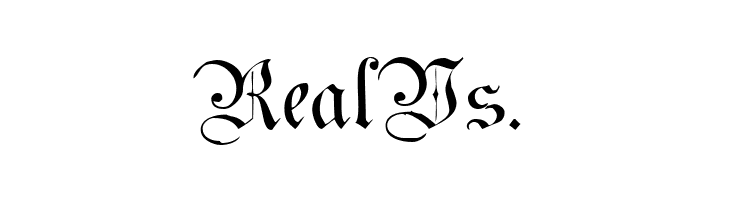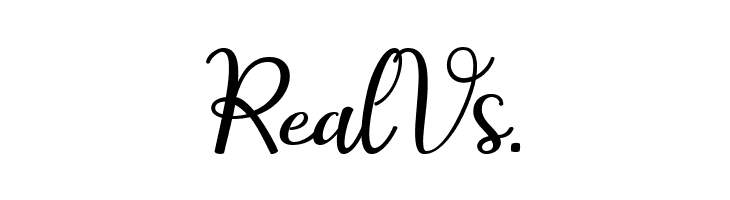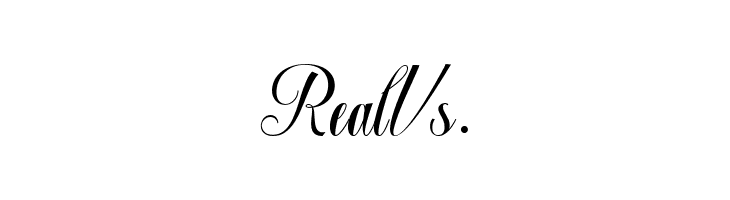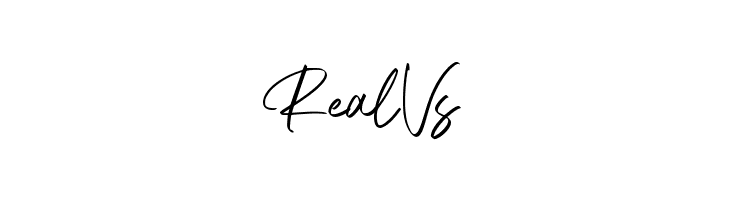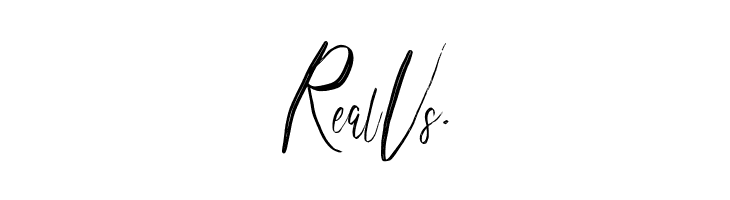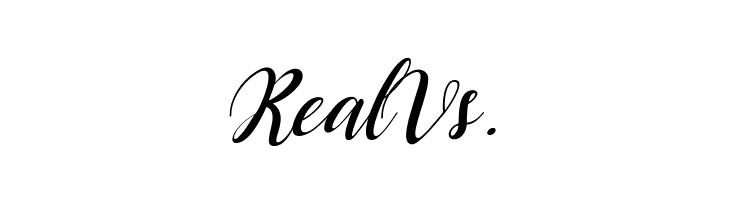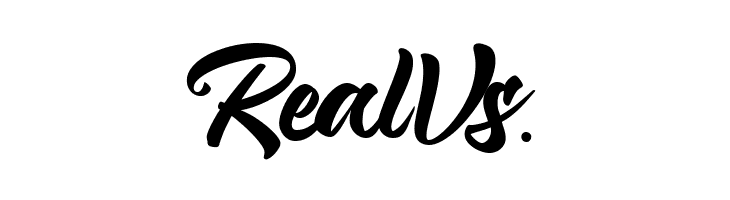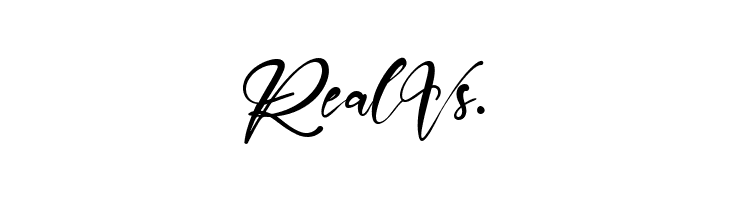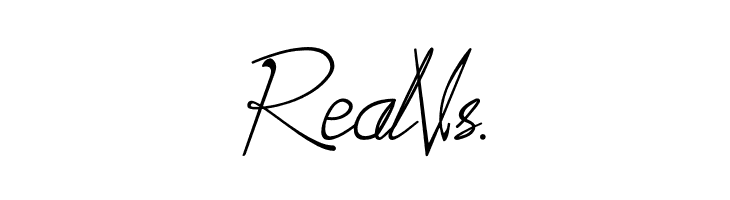
A casual, handwritten font with elegant, flowing strokes.
A classic, flowing script font with elegant, connected characters.
A fluid and elegant cursive script font with interconnected letters.
An elegant script font with flowing, cursive letterforms and graceful flourishes.
A whimsical, flowing script font with a playful, handwritten style.
An elegant script font with fluid, connected strokes and a sophisticated flair.
A flowing, elegant cursive script with bold uppercase and fluid lowercase letters.
A graceful, flowing script font with elegant curves and a handwritten style.
A mystical, rune-like decorative font with flowing, dynamic lines.
A mystical, rune-like decorative font with bold, intricate designs.
A bold, italicized decorative font with a mystical, fantasy-inspired design.
An intricate, decorative script with flowing curves and mystical appeal.
A fluid and elegant script font with a modern, handwritten style.
A smooth, flowing script font with elegant, connected characters.
A dynamic and fluid script font with elegant, flowing letterforms.
A flowing, elegant script font with decorative flourishes.
A flowing, cursive script font with smooth, rounded edges and connected characters.
An elegant script font with flowing, interconnected letters and sophisticated curves.
Elegant cursive script with a handwritten style.
An elegant script font with flowing, ornate curves and a classic style.
A bold, dynamic script font with a handwritten, cursive style.
An elegant script font with flowing, cursive letterforms and sophisticated swashes.
A playful and elegant script font with flowing, cursive letterforms.
A playful and elegant script font with fluid, cursive letterforms and decorative swashes.
A lively, cursive font with fluid, connected strokes and a handwritten feel.
A graceful and elegant script font with flowing, interconnected letters.
A bold, dynamic script font with high contrast and decorative flourishes.